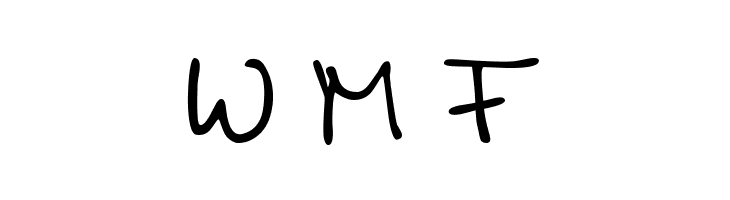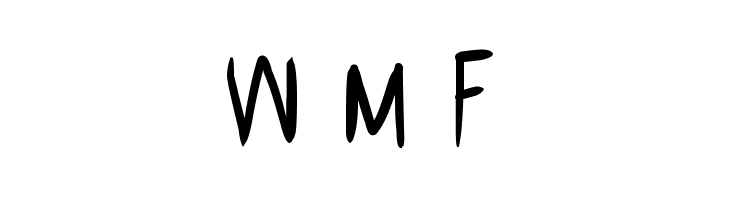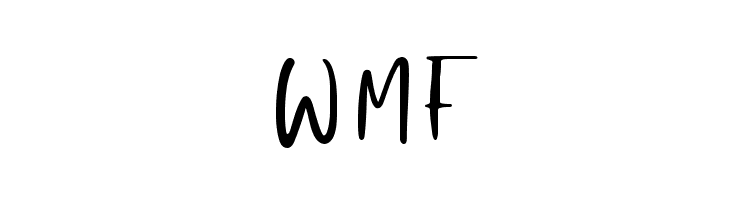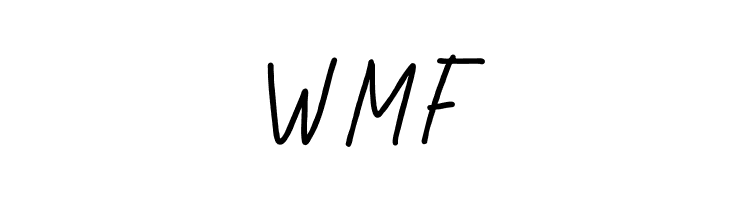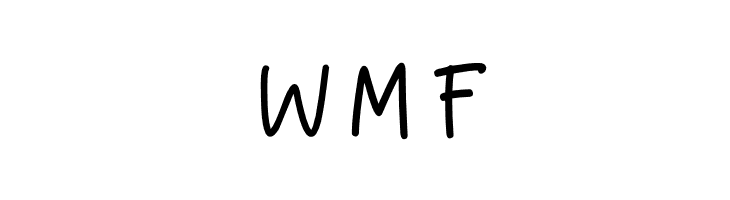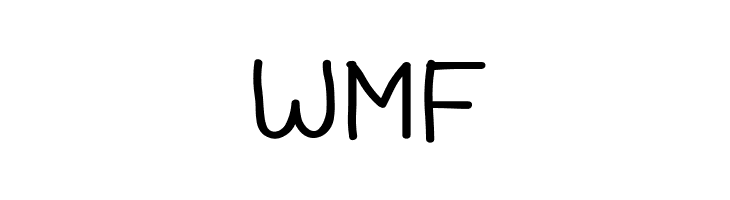
A monospaced font with a playful and approachable design, ideal for coding.
A casual, handwritten font with a playful and informal style.
A playful, handwritten font with bold, rounded strokes and a casual vibe.
A playful, handwritten font with uneven strokes and a casual, energetic style.
A playful, handwritten font with bold, irregular strokes and a casual style.
A playful, handwritten-style font with a smooth, flowing appearance.
A playful, handwritten font with rounded edges and a casual style.